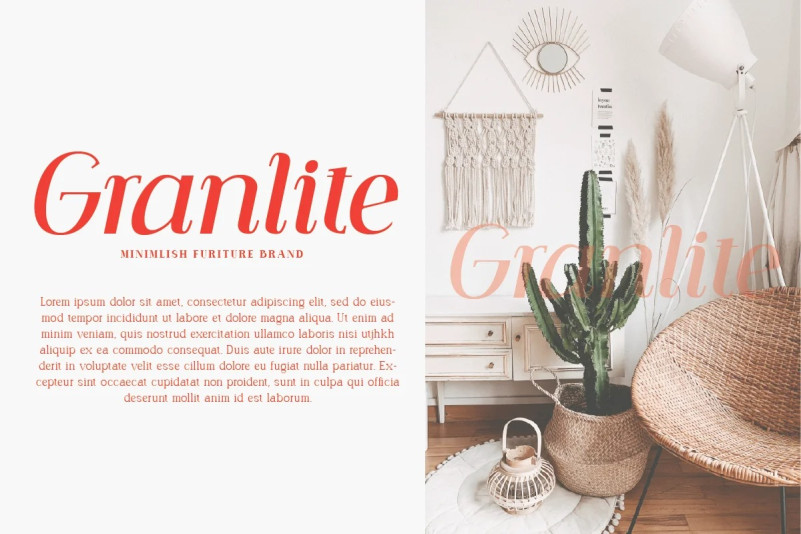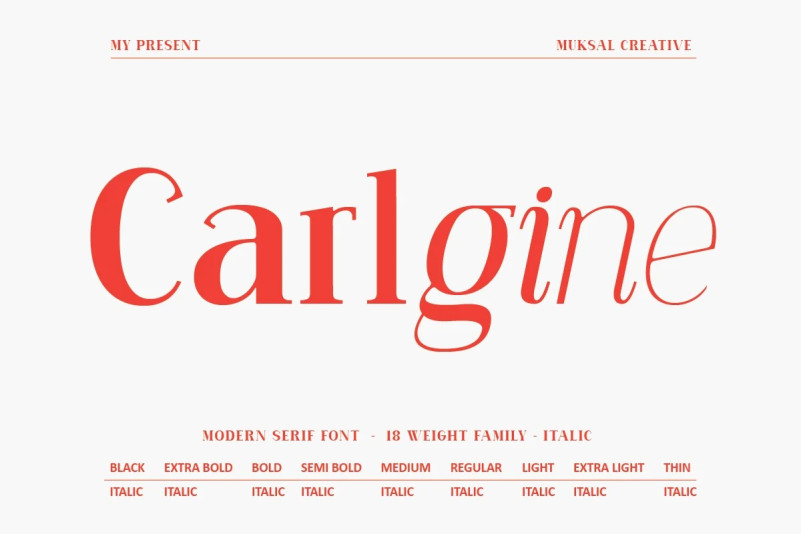
Carline Font
Carlgine Serif Font is a unique and modern family of serif fonts. Carlgine has 18 families Regular and italic font, starting from the small thin to the largest black. This typeface is versatile and can be used successfully in magazines, posters, branding, websites, etc.